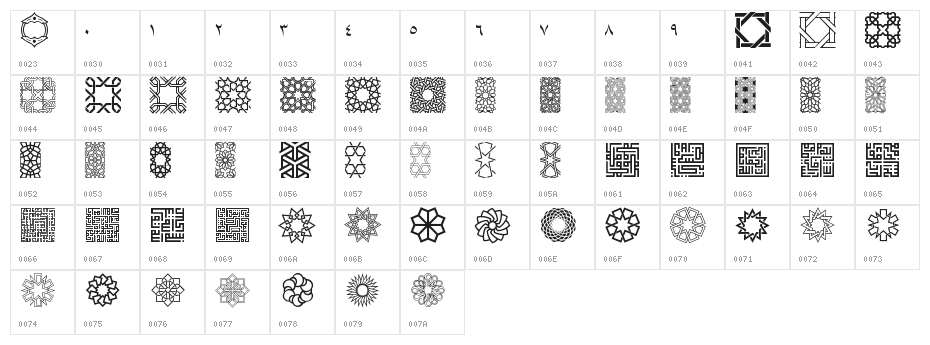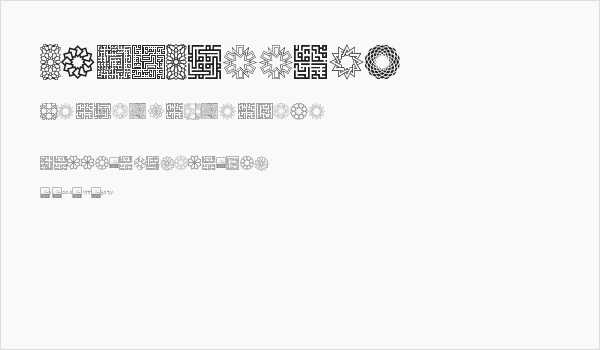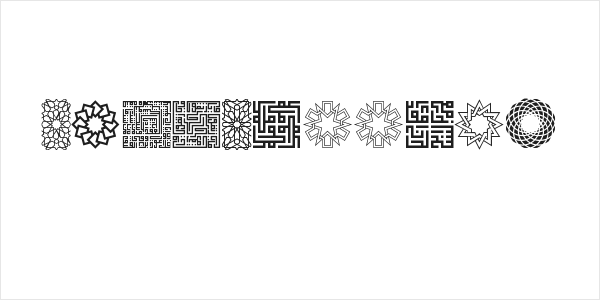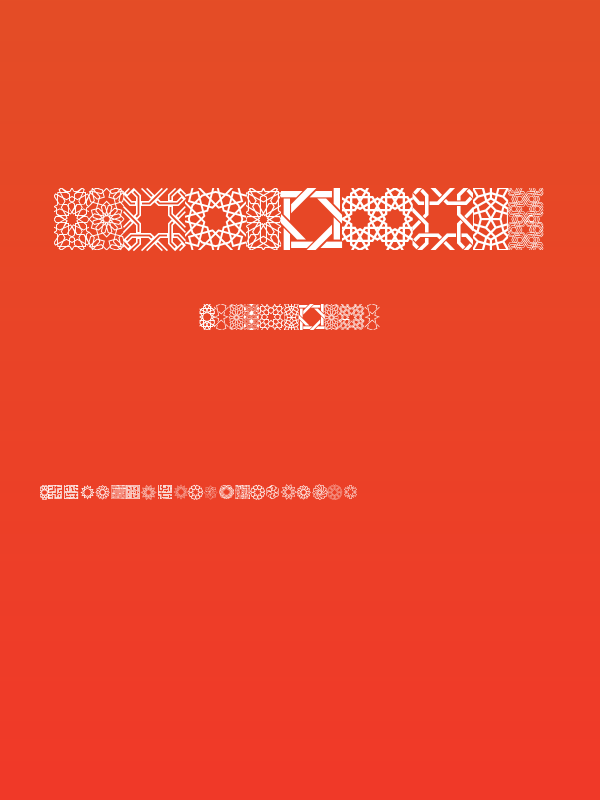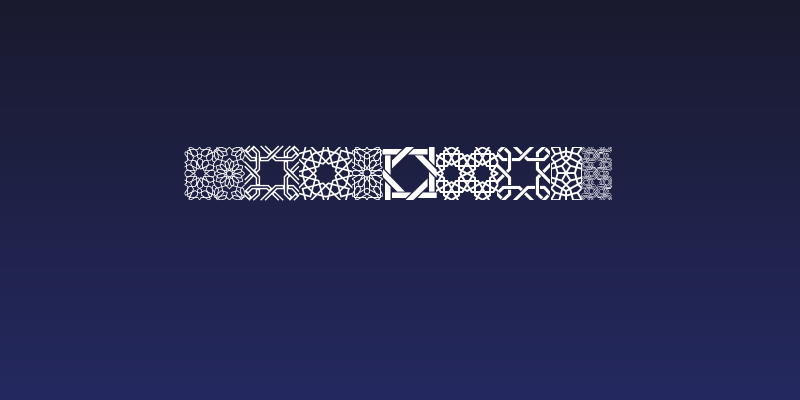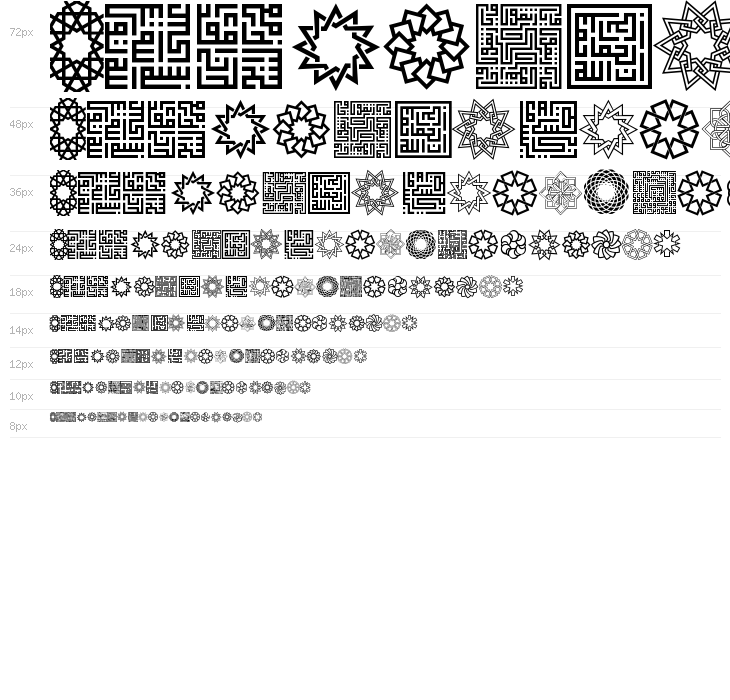
KufiPattern Font
KufiPattern Description
A highly decorative font featuring intricate geometric patterns and motifs inspired by traditional Islamic art, with some stylized numerals and unique ornamental symbols. The characters are primarily composed of complex interlocking shapes, lines, and curves, creating a visually rich and ornamental appearance.
| Overall Style | Decorative, Traditional, Ornamental |
| Use Case | Logos, Borders, Decorative elements, Posters |
| Proposed Projects | Branding for cultural events, decorative borders, invitations, posters, art projects, and logo design. |